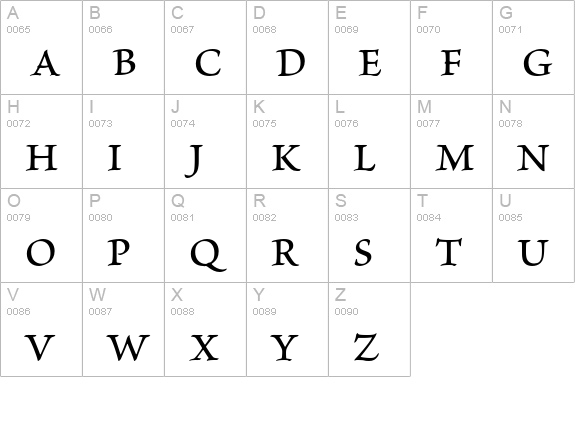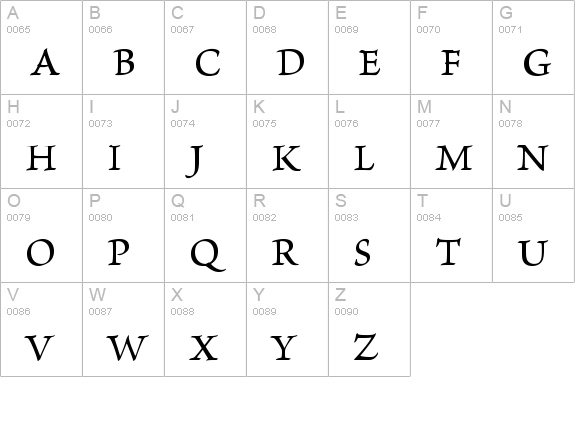
Brioso Pro Medium Caption Font Details
Brioso Pro Medium Caption is a balanced, medium-weight variant in the Brioso typeface family \xE2\x80\x94 well suited to sub-headlines, navigation, and balanced editorial work.
Brioso Pro Medium Caption font is a sophisticated and elegant typeface that exudes a sense of modernity and class. Its sleek lines and well-balanced proportions make it perfect for adding a touch of refinement to any design project. The medium weight of this font strikes a perfect balance between readability and style, making it ideal for use in captions, headlines, and body text. What sets Brioso Pro Medium Caption font apart is that it is available for free download at FontsMarket.com. This means that you can easily access this high-quality font without any cost, making it a valuable addition to your font library. Whether you are a designer looking for a versatile typeface or a content creator in need of a stylish font for your projects, Brioso Pro Medium Caption font is sure to impress with its timeless appeal and professional look.